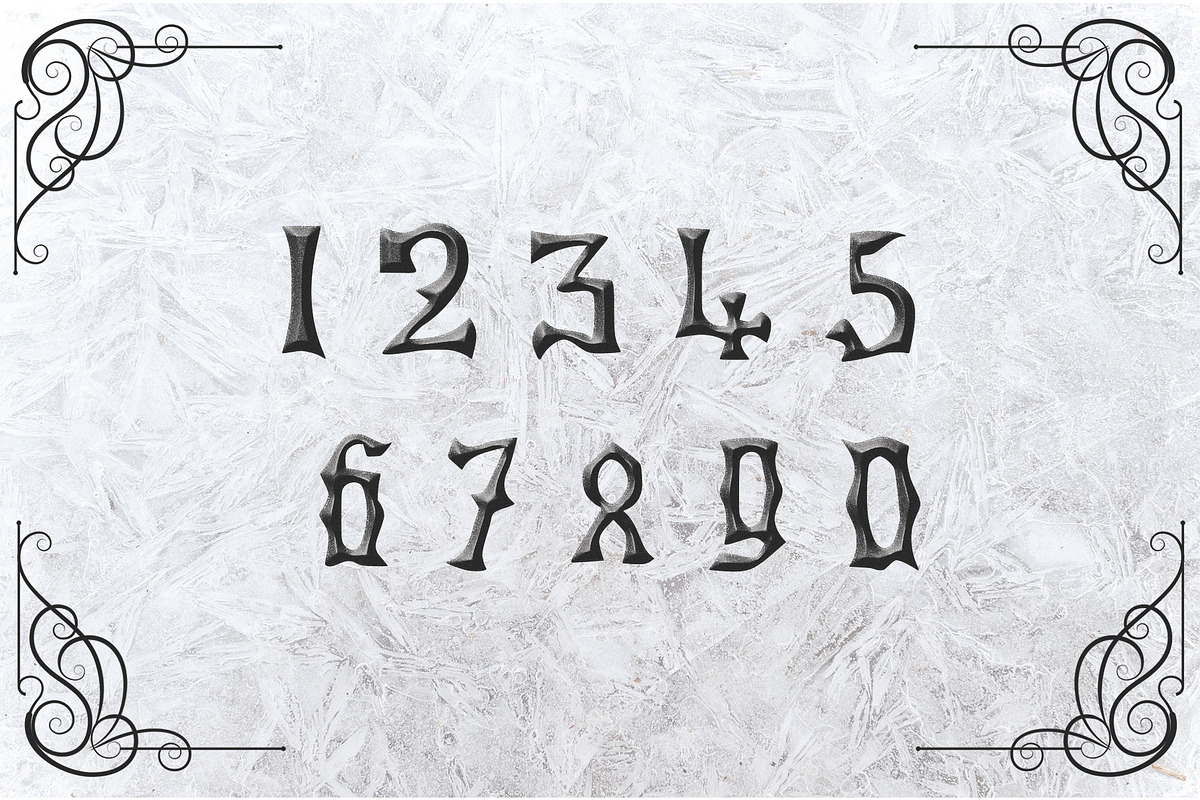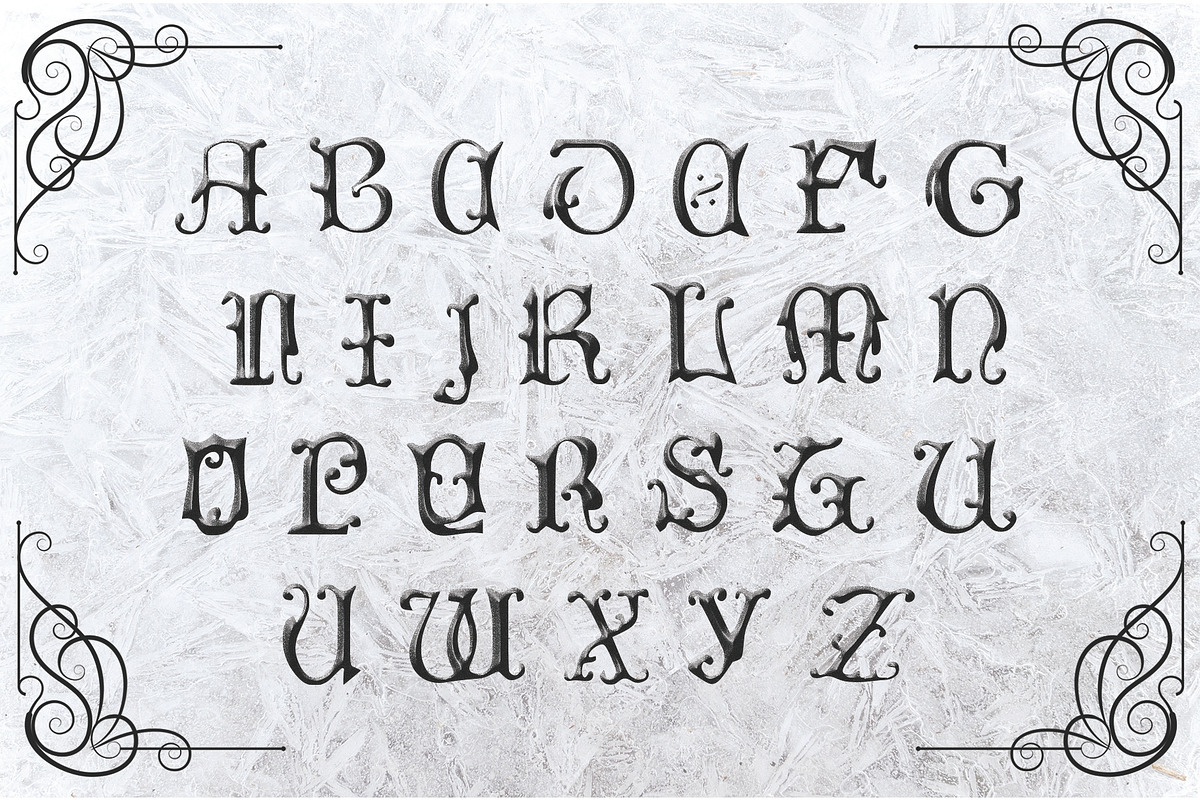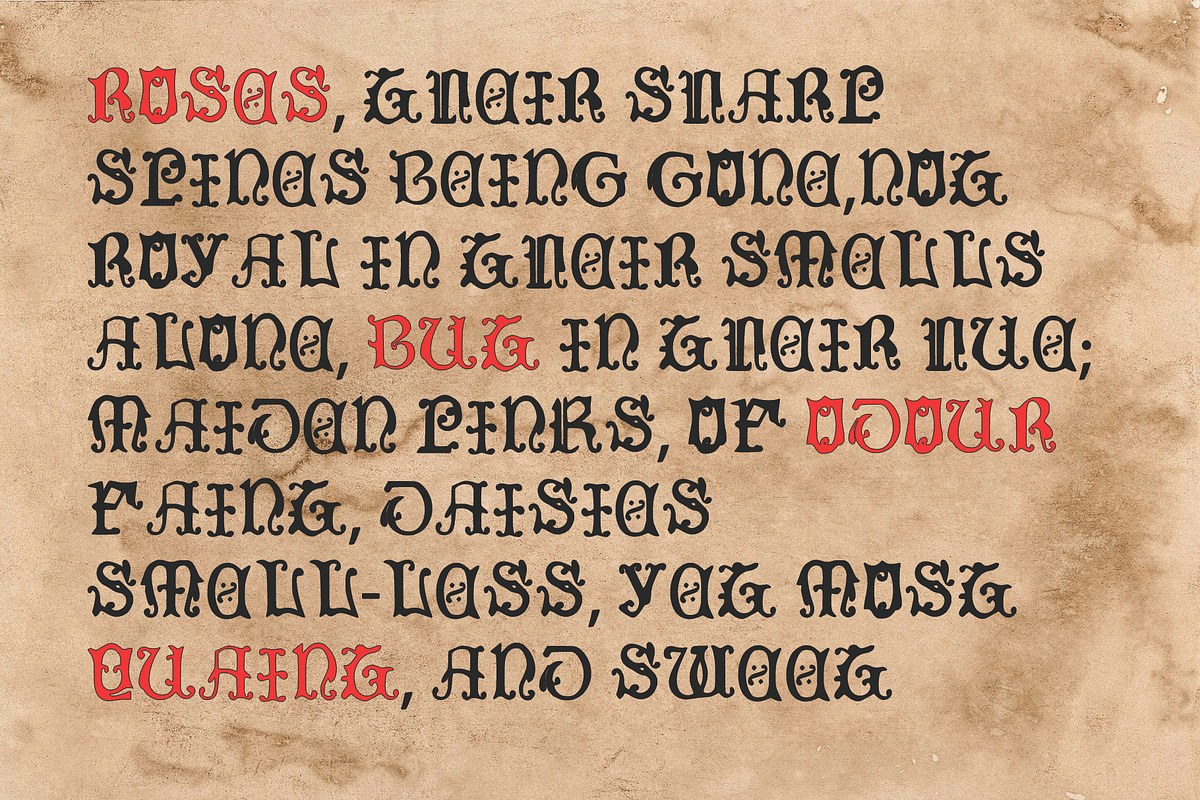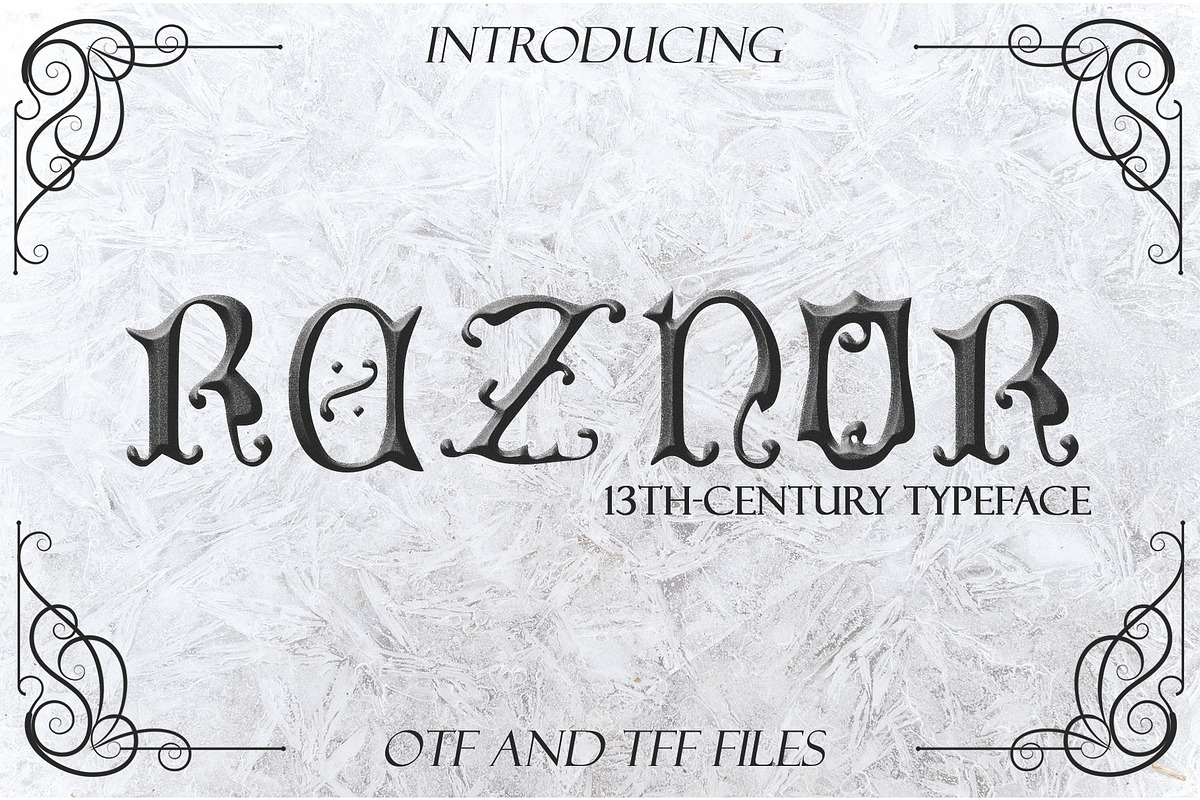
REZNOR, a Blackletter Typeface
REZNOR is a 13th-century decorative typeface that has been hand drawn and made into a font to give you a very authentic handwritten feel. A typeface brought back from the past to give life to your projects, this typeface is in uppercase and has numerals. This style is now mostly used for decorative purposes, for example, to evoke an old word classical feel. It can also be used to evoke a heavy metal feeling.
- A typeface brought back from the past to give life to your projects, this typeface is in uppercase and has numerals.